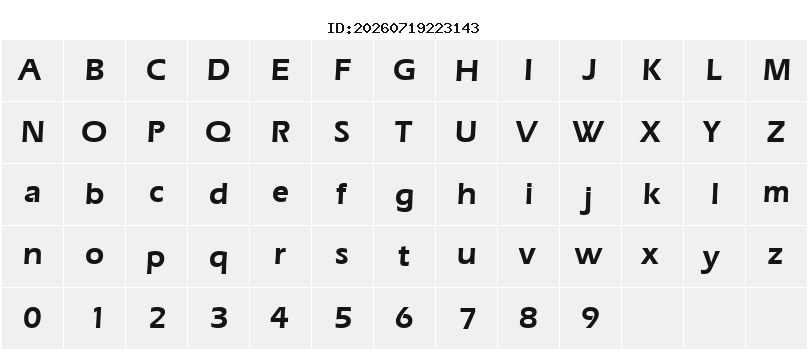
• Font Name: Eras Bk BT
• Font Style: Demi
• Font ID: ITC Eras Demi, Incised 726
• Full Font Name: Eras Demi BT
• PostScript Name: ErasITCbyBT-Demi
About Eras Bk BT.ttf
Eras Bk BT.ttf is a modern, elegant sans-serif font designed for ultimate readability and visual harmony. Perfect for branding, headlines, web design, and print materials.